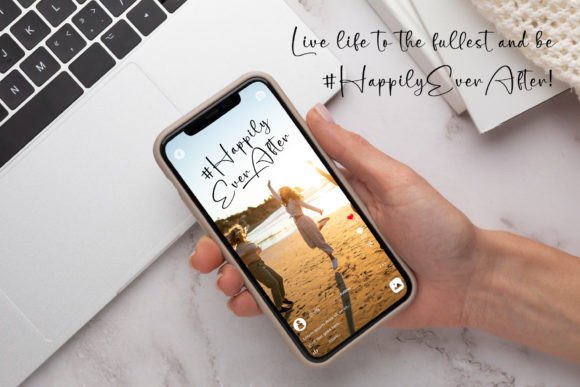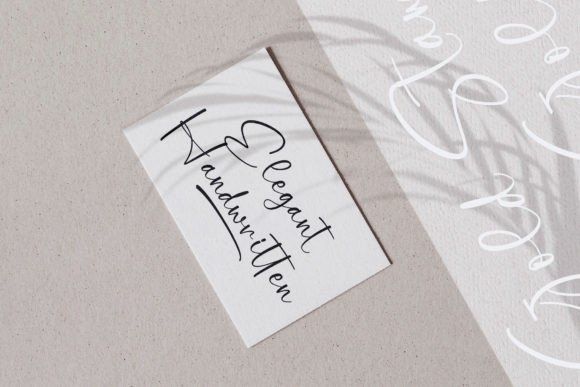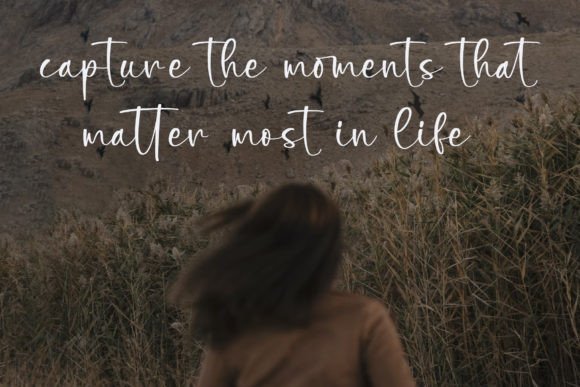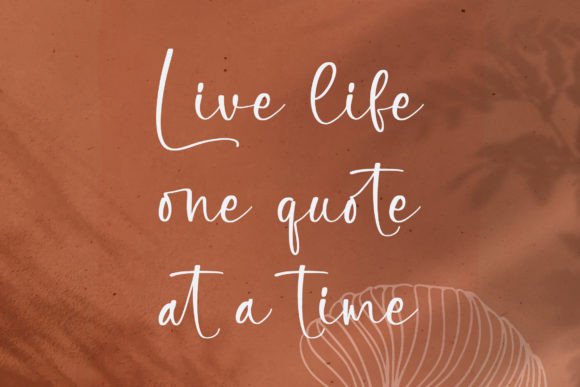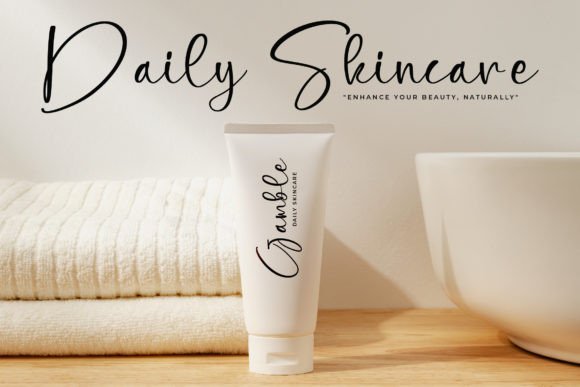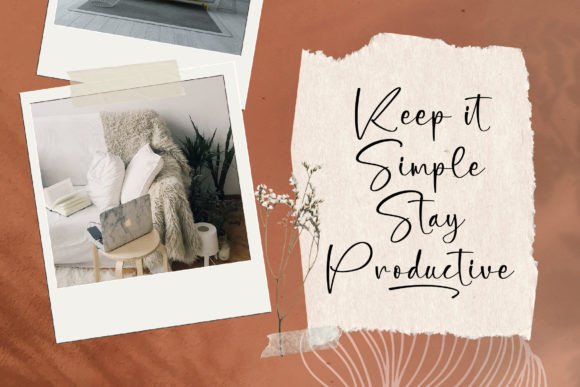
Introducing Gold Stamp Font: The Epitome of Elegance and Romance
Are you a designer or crafter looking for a font that exudes sophistication, joy, and romance? Look no further than Gold Stamp Font, a stylish and elegant signature script font that is sure to elevate your designs to new heights. With its dainty and joyful feel, Gold Stamp Font is the perfect choice for writing wedding invitations, cards, or any other design that requires a personalized touch.
The Characteristics of Gold Stamp Font
Gold Stamp Font is a beautifully crafted signature script font that boasts a range of characteristics that make it truly unique. Its elegant and refined appearance is perfect for designs that require a touch of sophistication and glamour. The font features:
- Dainty and joyful feel: Gold Stamp Font has a light and airy feel that is sure to bring a sense of joy and happiness to your designs.
- Elegant and refined appearance: The font’s elegant and refined appearance makes it perfect for designs that require a touch of sophistication and glamour.
- Signature script style: Gold Stamp Font is a signature script font that features beautiful, flowing connections between letters.
- Romantic and personalized touch: The font’s romantic and personalized feel makes it perfect for wedding invitations, cards, and other designs that require a special touch.
Uses for Gold Stamp Font
Gold Stamp Font is a versatile font that can be used for a wide range of design projects. Some of the most popular uses for the font include:
- Wedding invitations: Gold Stamp Font is the perfect choice for wedding invitations, with its elegant and refined appearance and romantic feel.
- Cards and stationery: The font is also ideal for cards and stationery, adding a touch of sophistication and glamour to any design.
- Branding and packaging: Gold Stamp Font can also be used for branding and packaging, adding a touch of elegance and refinement to any product.
- Digital designs: The font can also be used for digital designs, such as social media graphics, blog posts, and more.
Why Choose Gold Stamp Font?
There are many reasons why Gold Stamp Font is the perfect choice for designers and crafters. Some of the benefits of using the font include:
- Unique and elegant appearance: Gold Stamp Font has a unique and elegant appearance that is sure to set your designs apart from the crowd.
- Easy to read and use: The font is easy to read and use, making it perfect for a wide range of design projects.
- High-quality design: Gold Stamp Font is a high-quality font that is designed to deliver exceptional results.
- Affordable and accessible: The font is affordable and accessible, making it perfect for designers and crafters of all levels.
Tips for Using Gold Stamp Font
To get the most out of Gold Stamp Font, here are a few tips to keep in mind:
- Use it sparingly: Gold Stamp Font is a elegant and refined font, so it’s best to use it sparingly to add a touch of sophistication to your designs.
- Pair it with other fonts: The font pairs well with other fonts, so feel free to experiment with different combinations to find the perfect look for your design.
- Experiment with colors: Gold Stamp Font looks great in a range of colors, so don’t be afraid to experiment and find the perfect color for your design.
Gold Stamp Font is a stylish and elegant signature script font that is perfect for designers and crafters looking to add a touch of romance and sophistication to their designs. With its dainty and joyful feel, elegant and refined appearance, and versatile uses, Gold Stamp Font is the perfect choice for a wide range of design projects. Whether you’re creating wedding invitations, cards, or other designs, Gold Stamp Font is sure to deliver exceptional results.